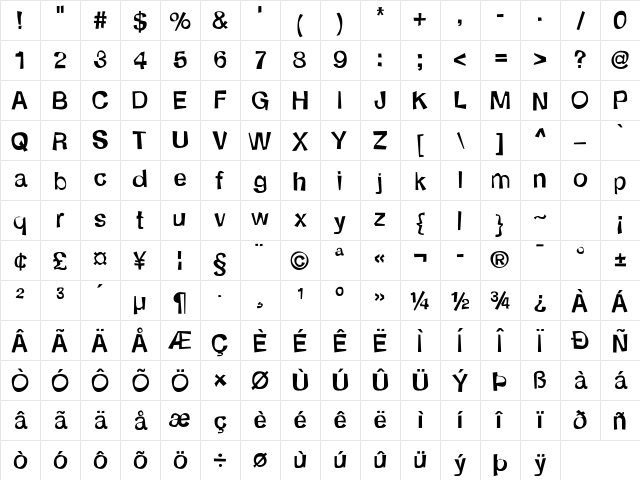
Complete Schmelvetica Regular glyph index. Displaying only characters natively supported by Schmelvetica Regular font.
Schmelvetica is a composed and adaptable typeface that performs quietly and consistently across a wide range of design contexts.